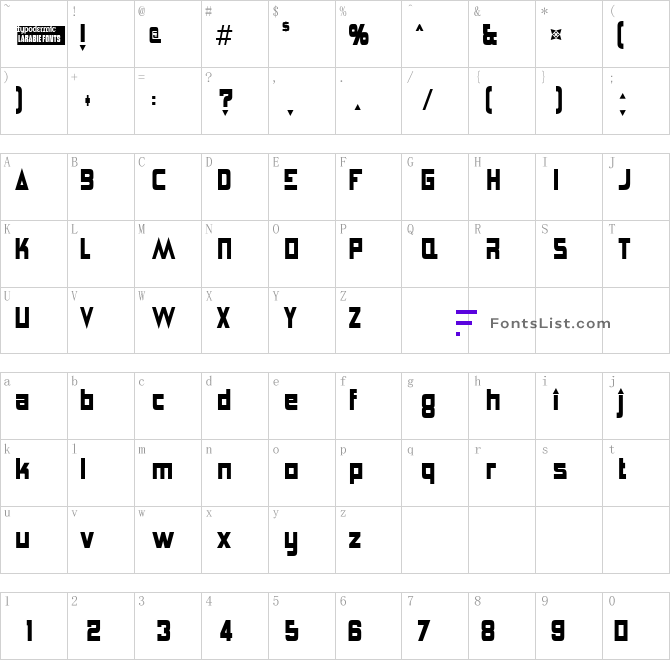
• Font Name:Anglepoise Lampshade
• Full Name:Anglepoise Lampshade
Anglepoise-Lampshade-copy-2-.ttf is a very beautiful artistic font, Anglepoise-Lampshade-copy-2-.ttf is widely used in the design and printing of various books and pictures,Anglepoise-Lampshade-copy-2-.ttf has a strong visual impact,Anglepoise-Lampshade-copy-2-.ttf is a commonly used font in newspapers, magazines and books, and is used in posters, e-commerce Poster design, store design, logo design, font design and other fields.Anglepoise-Lampshade-copy-2-.